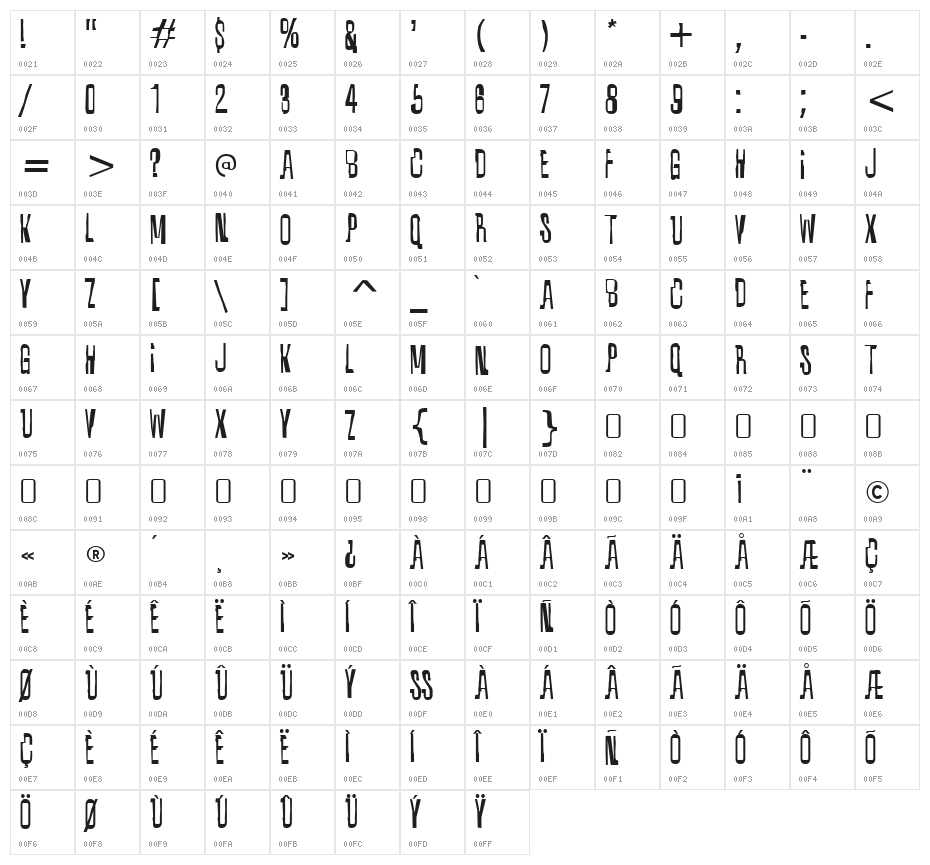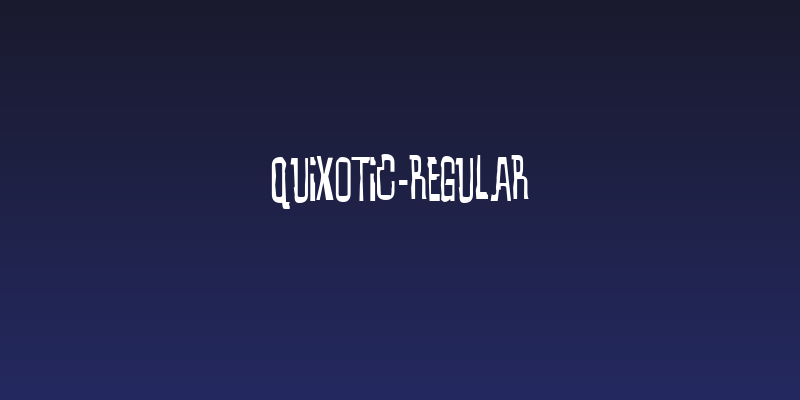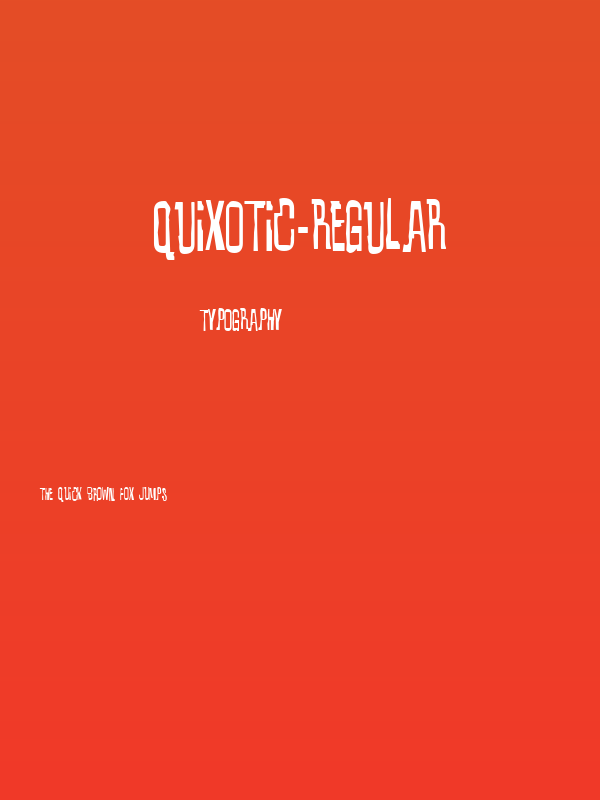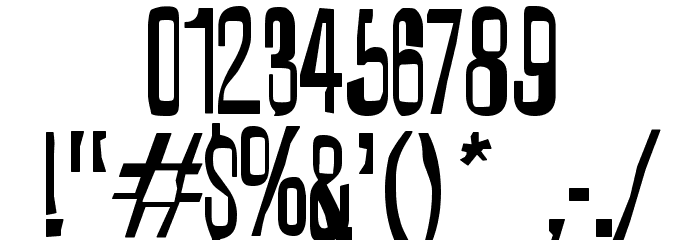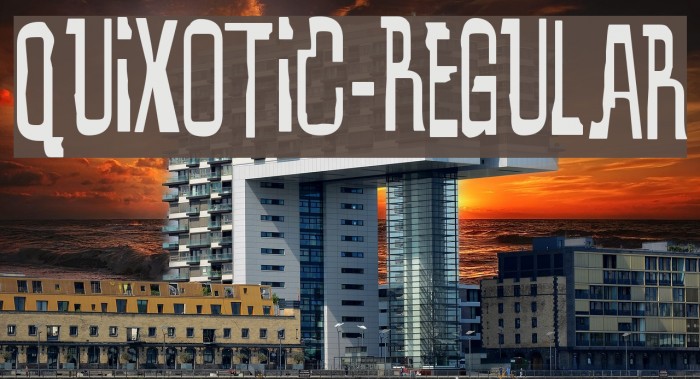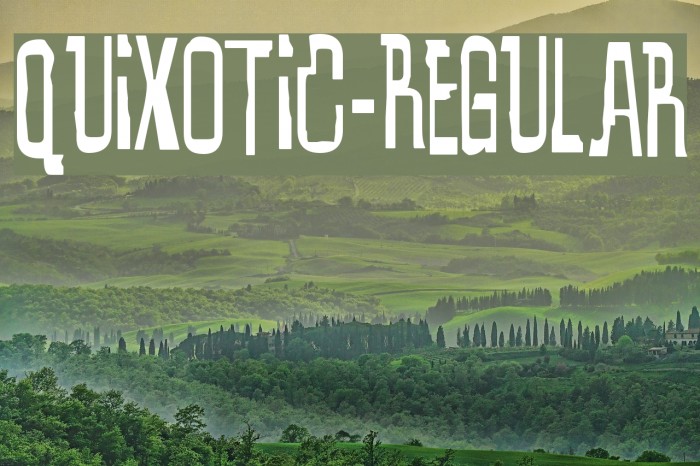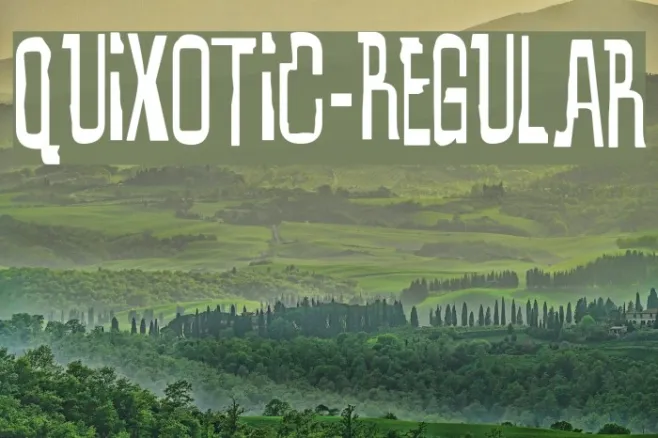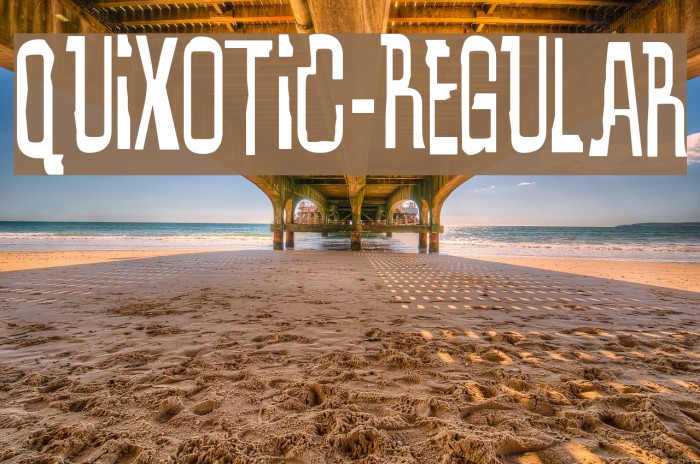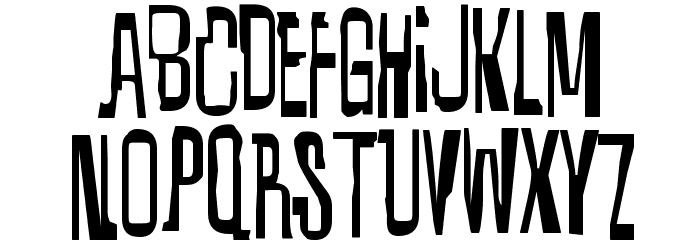
Quixotic-Regular Font
Quixotic-Regular Description
This font features a bold and condensed style with a unique, slightly distorted appearance. The uppercase and lowercase letters maintain a consistent height, creating a uniform look. The characters are tightly spaced, enhancing the compact feel. The numbers and special characters follow the same design principles, ensuring a cohesive appearance across all elements. The font's high contrast in stroke thickness adds to its striking and modern aesthetic, making it stand out in any design project.
| Proposed Projects | Ideal for edgy branding, poster designs, album covers, and any project requiring a bold statement. |